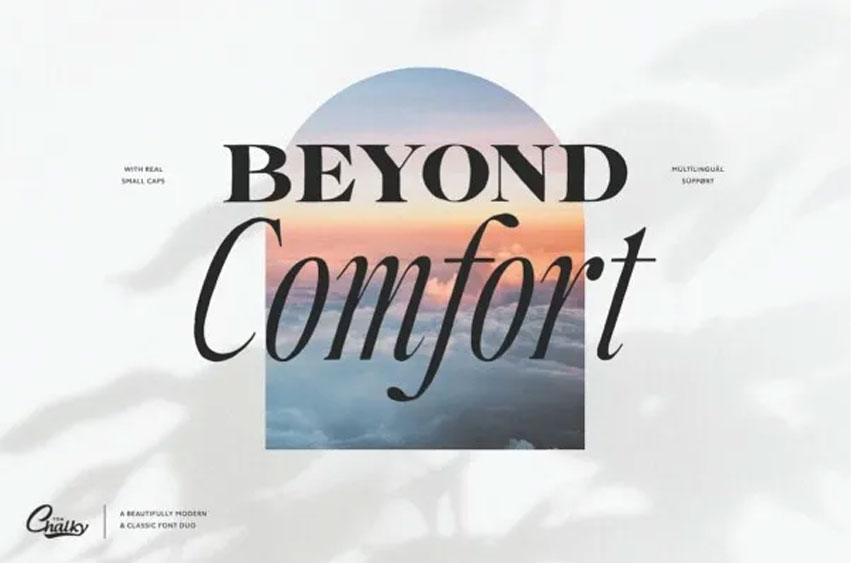
Beyond Comfort Font
Beyond Comfort Font is a stylish and classy font duo inspired by vintage editorial fonts you’ll come across in magazines and adverts.
A somewhat unusual pairing that works beautifully together! Both can take center stage, with entirely different approaches, changing the tone of your work immediately.